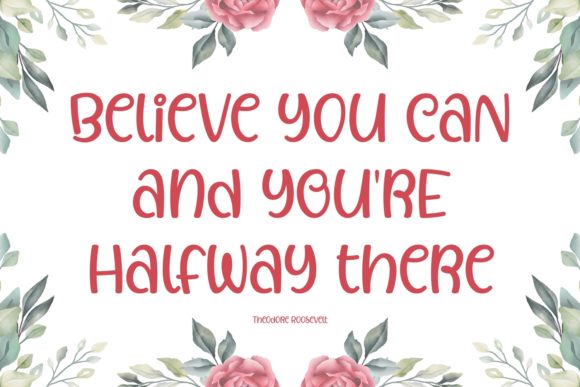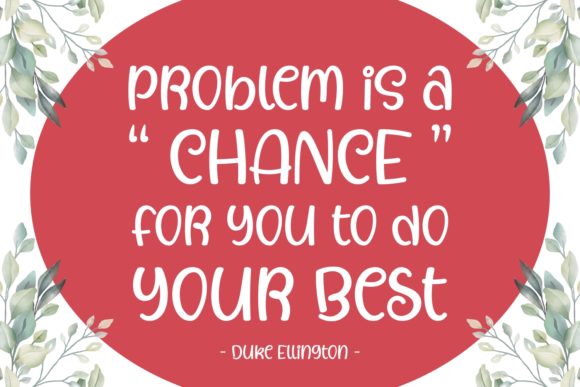
Struggle Stories Font
About Struggle Stories Font
Struggle Stories simplifies elegance into one truly outstanding handwritten font. This font is the perfect fit for all of your logos, branding, social media, and crafty DIY projects.